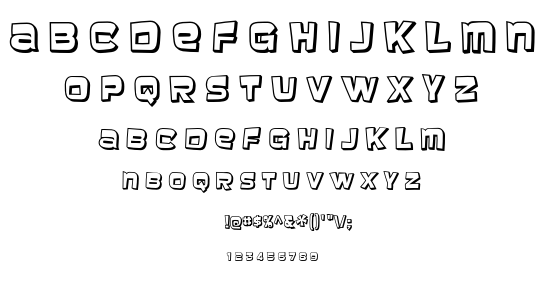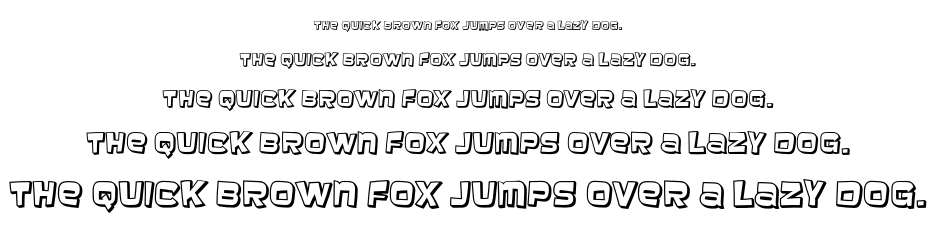
Baveuse is a fun, bouncy casual headline font. In OpenType savvy applications, letter variations are automatically shuffled to create a more natural look. Don’t forget to read the files inside the zip for details. Updated in 2012.